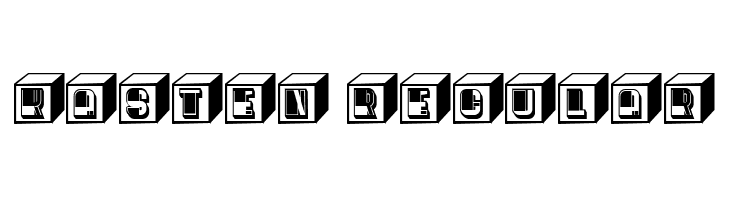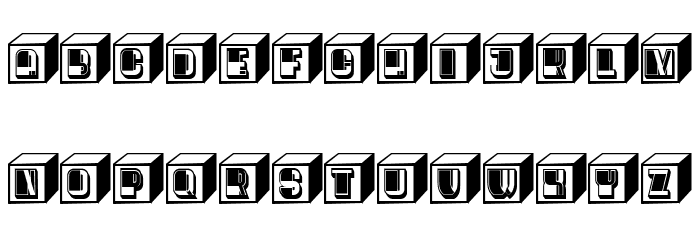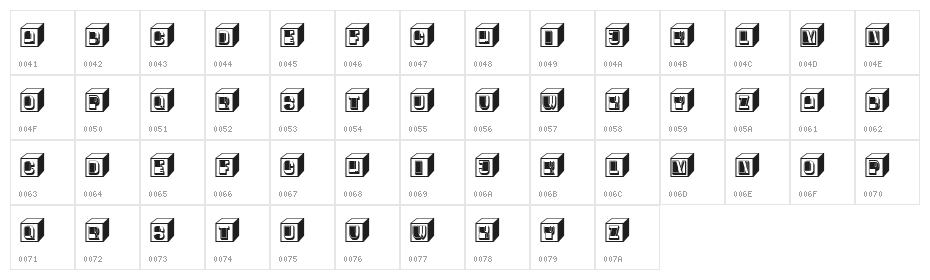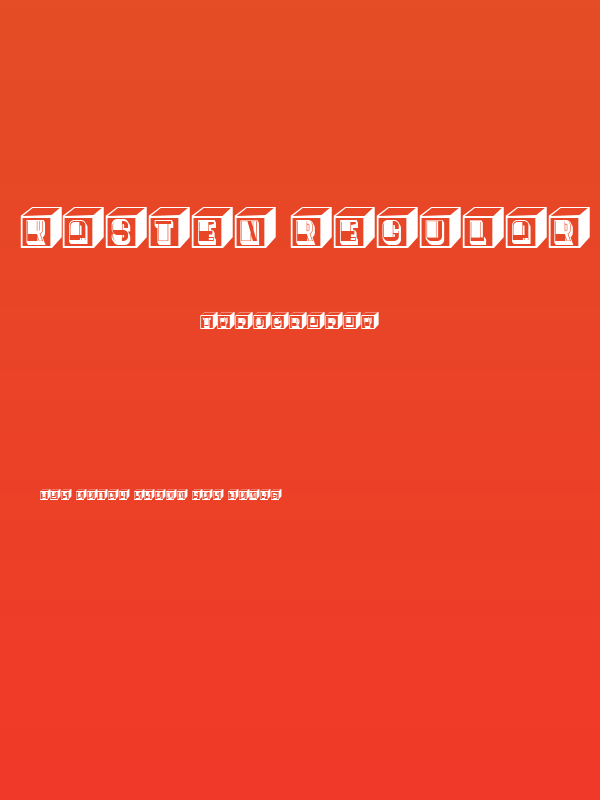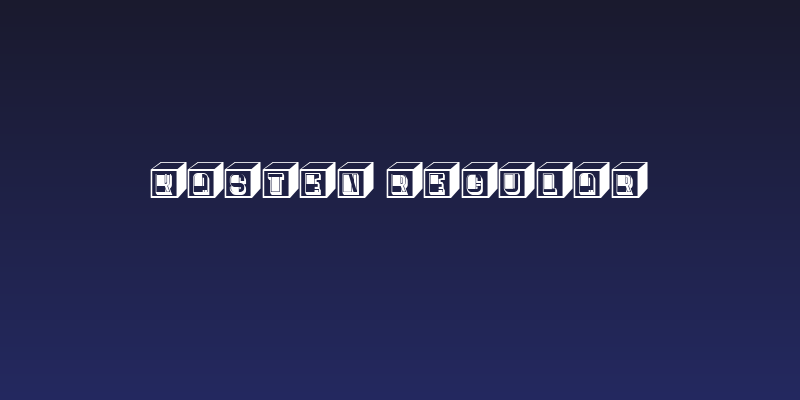
Kasten Regular Font
Kasten Regular Description
This font features a unique 3D block design, where each character is encased in a cube-like structure, giving it a bold and striking appearance. The letters are uppercase and have a shadow effect that enhances the three-dimensional look. The style is reminiscent of retro or vintage designs, making it stand out with its decorative and playful nature. This font is perfect for creating eye-catching headlines or logos that require a strong visual impact. The characters are evenly spaced, ensuring readability despite the intricate design.
| Overall Style | Vintage, Decorative |
| Proposed Projects | Ideal for retro-themed posters, logos, video game titles, and creative branding projects. |